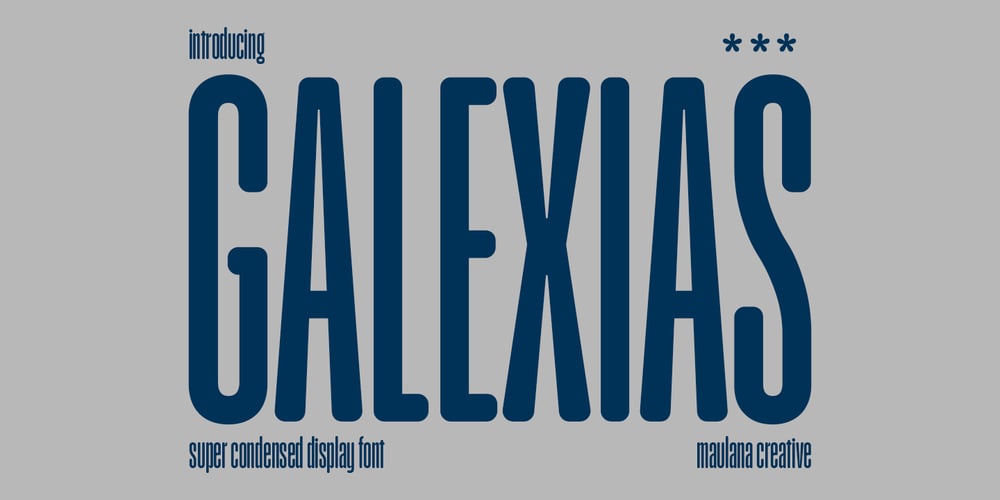
MC Galexias Font Family was designed by Gilang Maulana and published by Maulana Creative. MC Galexias contains 1 styles and family package options. Galexias is a modern fun sans serif font. With condensed stroke, fun character with a bit of ligatures and alternates. To give you an extra creative work. Galexias font support multilingual more than 100+ language. This font is good for logo design, Social media, Movie Titles, Books Titles, a short text even a long text letter and good for your secondary text font with script or serif. Make a stunning work with Galexias font. Cheers, Maulana Creative